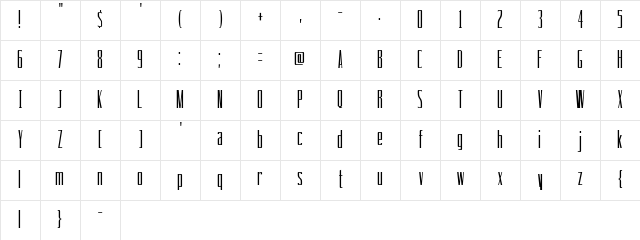
Drinking Regular
Design Context for Drinking Typeface
Drinking offers clean, dependable letterforms without strong stylistic allegiance, making it a practical choice for designers who need flexibility.